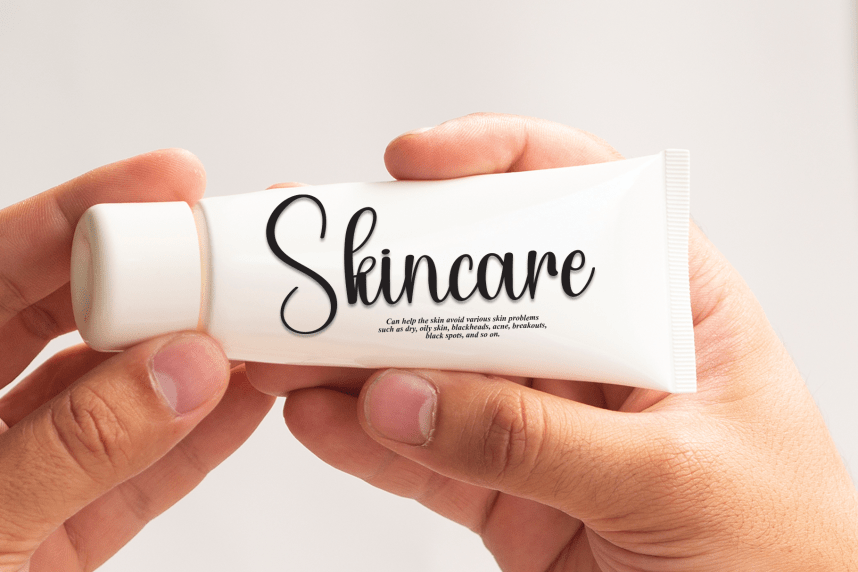
Santa Holiday – Elegant Handwritten Font
Santa Holiday – Elegant Handwritten Font, special creative products for you, our products will give you an extraordinary experience. the latest style letters are perfect for wall displays, wedding invitations, social media post logos, advertisements, product packaging, product designs, labels, photography, watermarks, invitations, stationery, and any project that requires taste handwriting.